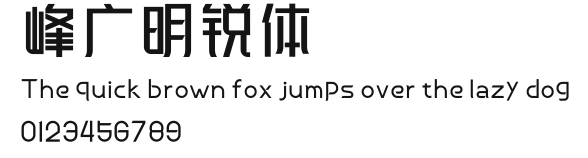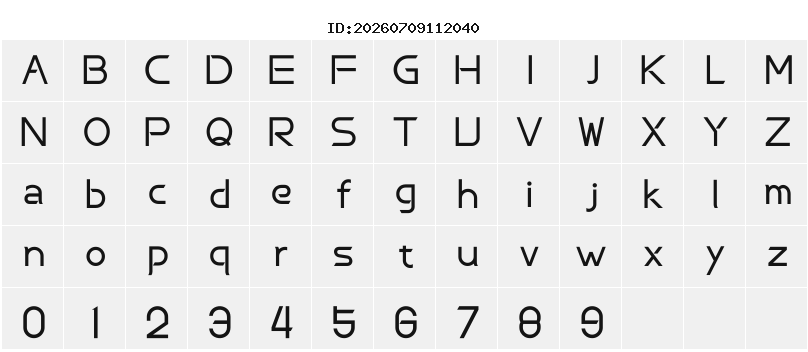
• Font Name: 峰广明锐体
• Font Style: 正常
• Font ID: 峰广明锐体
• Full Font Name: 峰广明锐体
• PostScript Name: fengguangmingrui
• Character Count: 4500
About 峰广明锐体.ttf
峰广明锐体.ttf is a modern, elegant sans-serif font designed for ultimate readability and visual harmony. Perfect for branding, headlines, web design, and print materials.